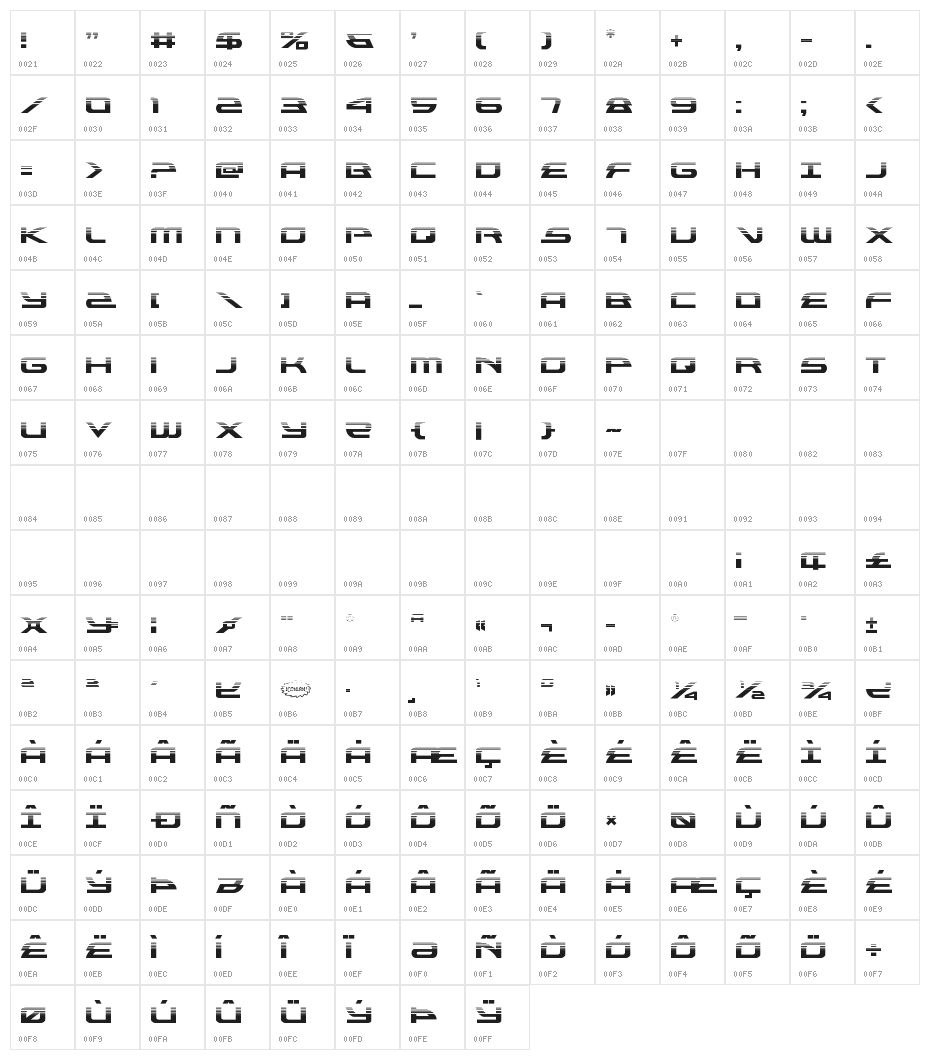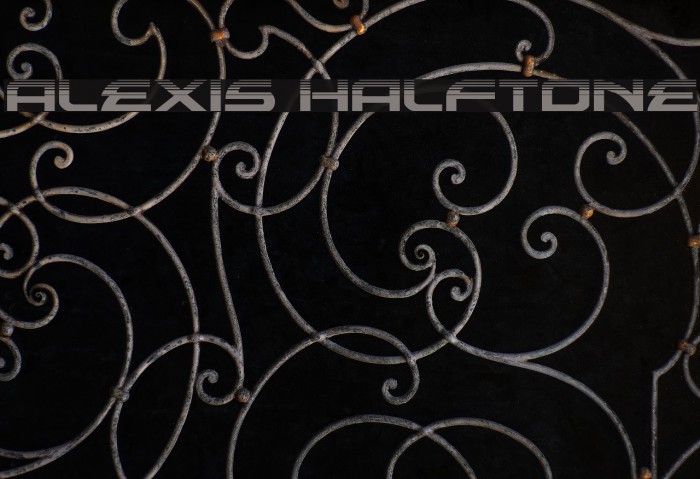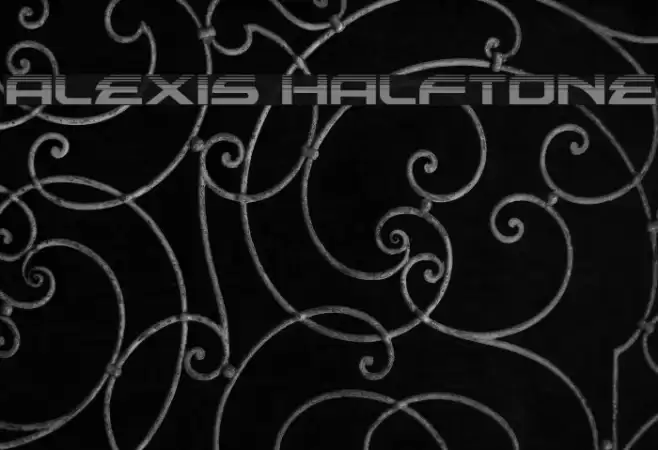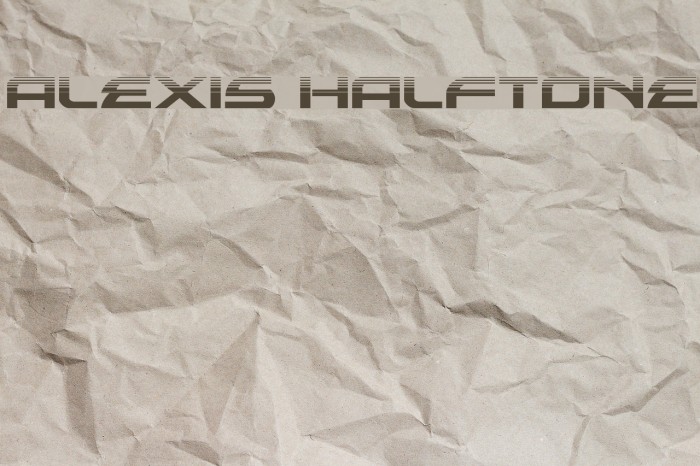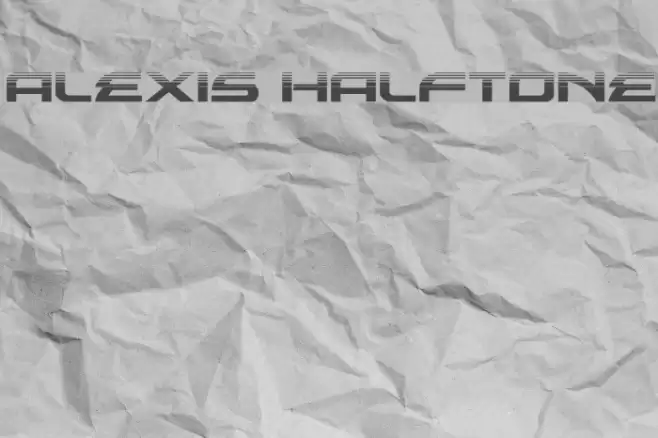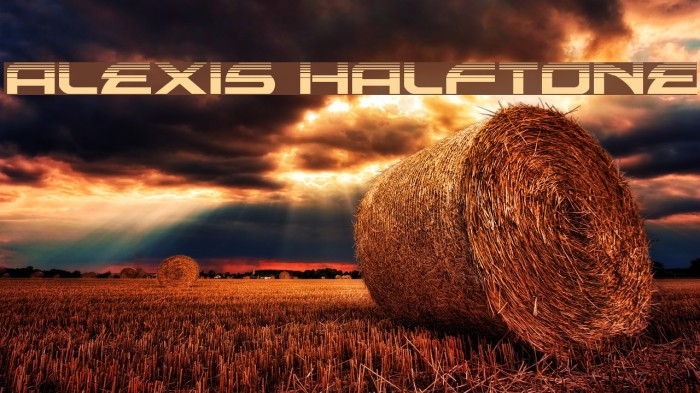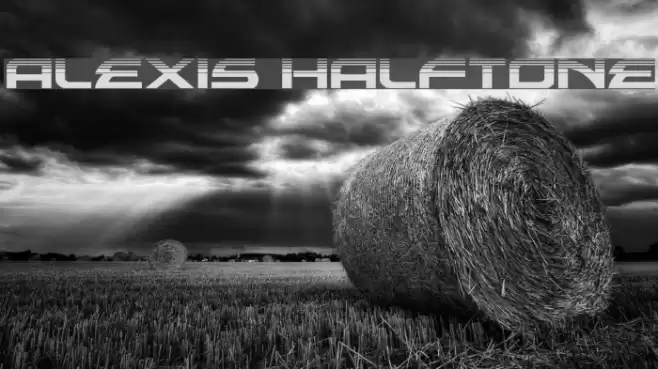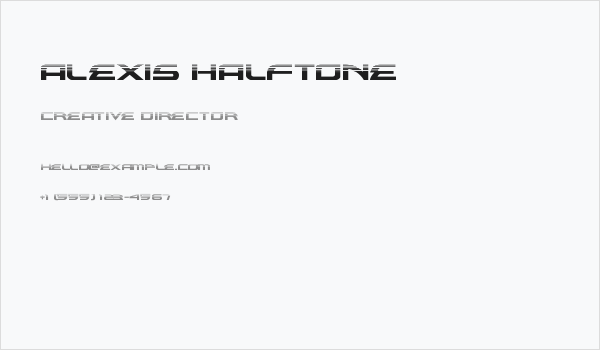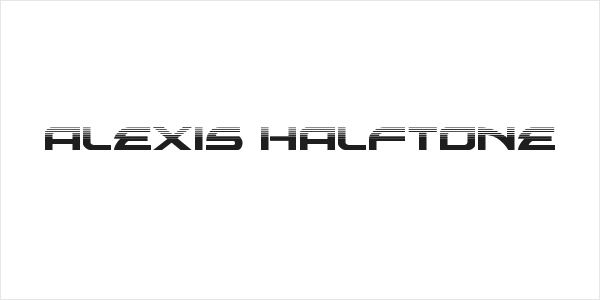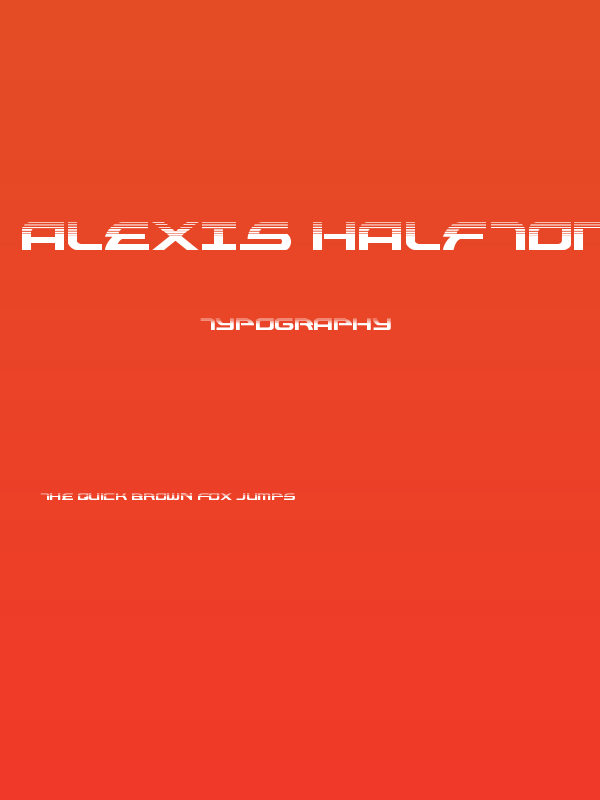
Alexis Halftone Font
Alexis Halftone Description
This font features a bold, futuristic design with a halftone effect that creates a sense of movement and dynamism. The characters are constructed with a series of horizontal lines that vary in thickness, giving a unique visual texture. The geometric shapes are sharp and angular, contributing to a modern and edgy appearance. The uppercase and lowercase letters maintain a consistent style, with a strong emphasis on horizontal alignment. Numbers and special characters are designed to match the overall aesthetic, ensuring a cohesive look across all text elements.